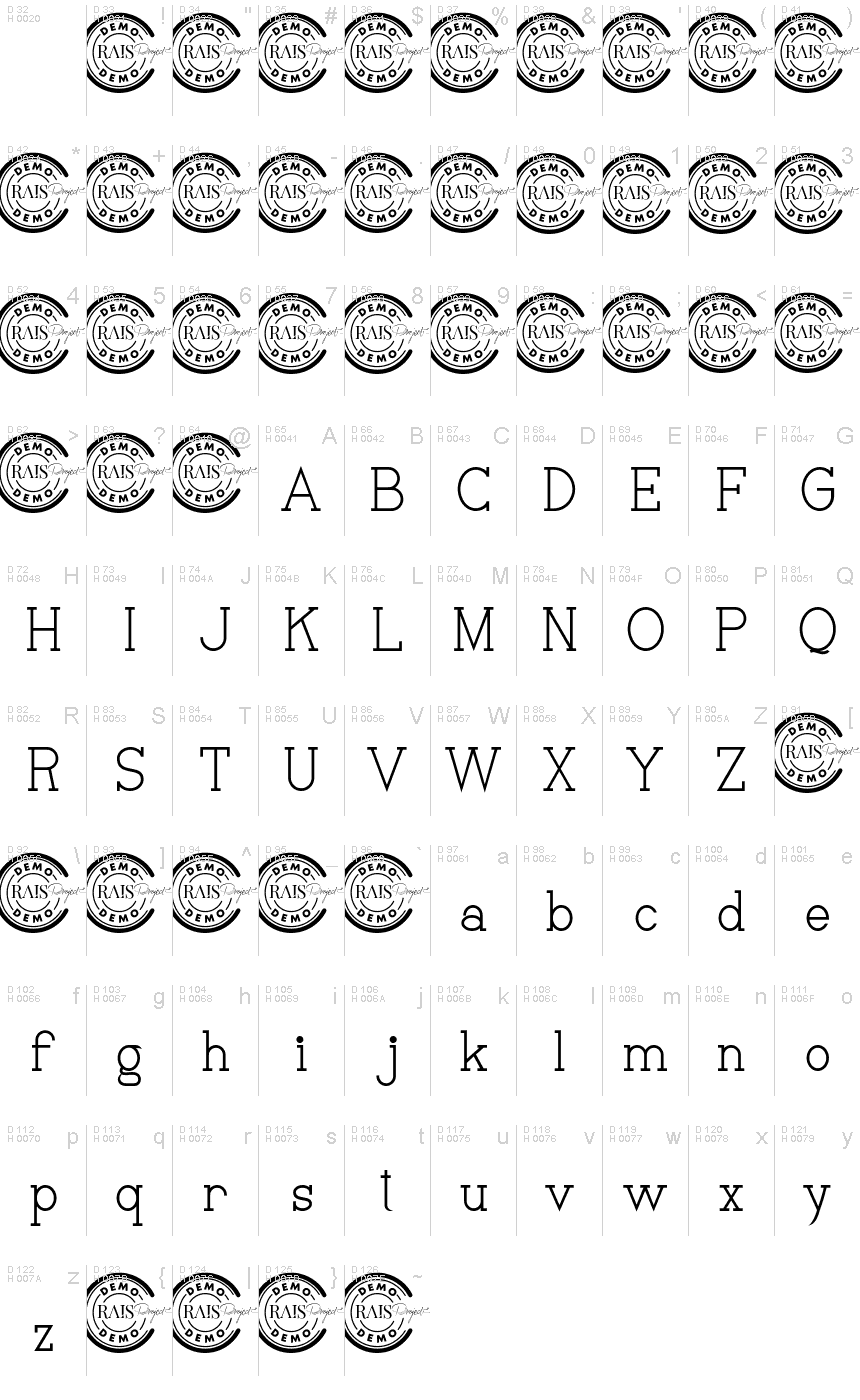
Victorela is a beautiful serif font designed by Widiyanti & Suci Anita. Its light characteristics make it an ideal choice for projects that need a touch of elegance and refinement. Perfect for creating eye-catching headlines, posters, and titles, Victorela will bring a timeless look to any design. Whether you’re crafting wedding invitations or designing a brand logo, Victorela is sure to add a special flair to your project.